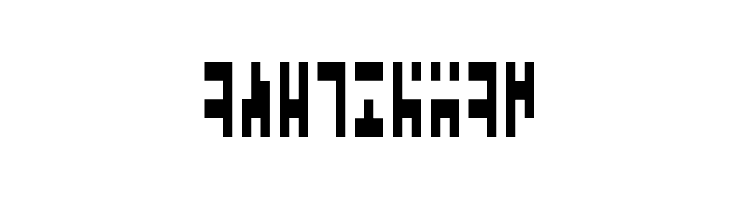
( Fonts by Christopher Andy )
A playful, bold font with rounded, bubble-like characters.
( Fonts by www.aenigmafonts.com )
A bold, geometric font with characters enclosed in circles, offering a modern and decorative style.
A decorative font featuring ornate astrological symbols within framed squares.
( Fonts by Przemyslaw Hoffer )
A geometric, angular font with a mechanical and industrial style.
A playful, handwritten font with smooth, flowing lines and rounded edges.
( Fonts by Thomas Ledin - tomledin.com )
A rugged, textured font with jagged edges, ideal for bold and adventurous designs.
( Fonts by Graham Meade - GemFonts )
A festive font with characters inside Christmas light bulb shapes, perfect for holiday themes.
A playful, handwritten font with smooth, rounded strokes and a casual style.
( Fonts by Arkandis Digital Foundry )
A bold, italic serif font with elegant curves and a classic style.
( Fonts by Katsia Jazwinska )
A playful handwritten font with bold, dynamic strokes and a casual style.
设计师偏爱 Are You Kitten Me, Spheroids BRK, KR Astro 1, mechanik Regular and Buttercake,因为其造型干净、适用范围广—— 从品牌识别到落地页、海报都能胜任。